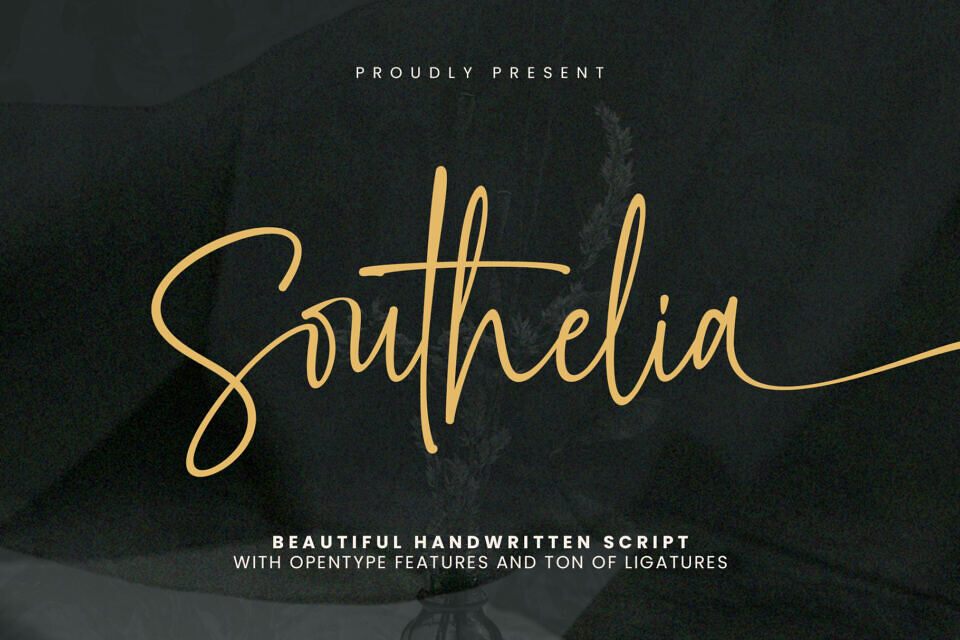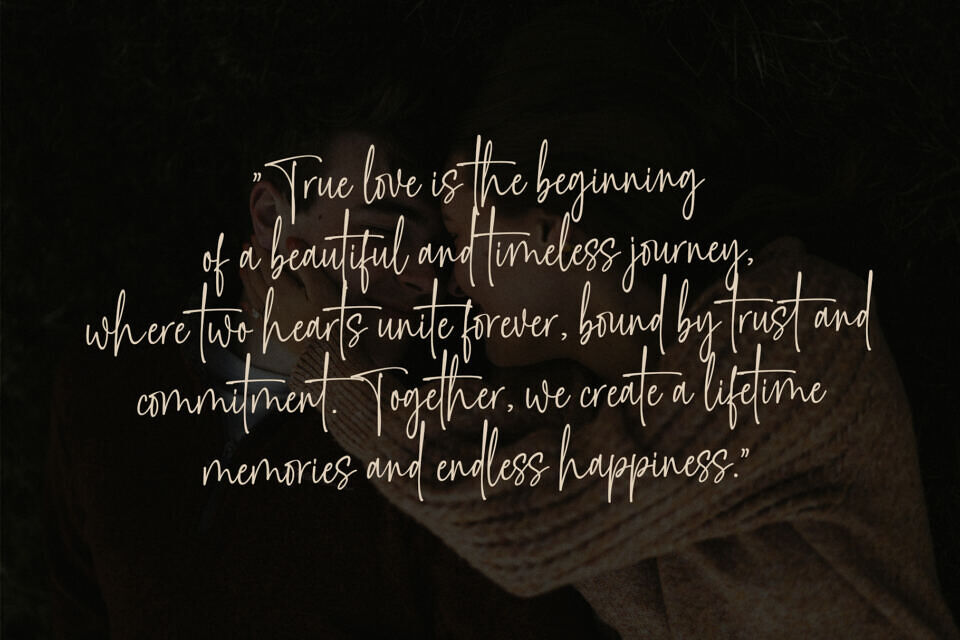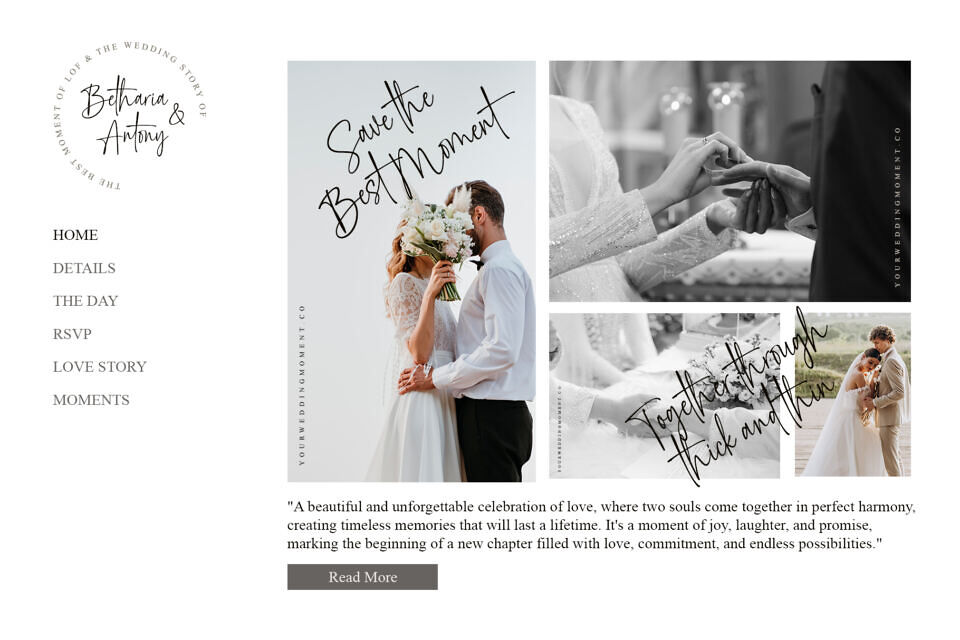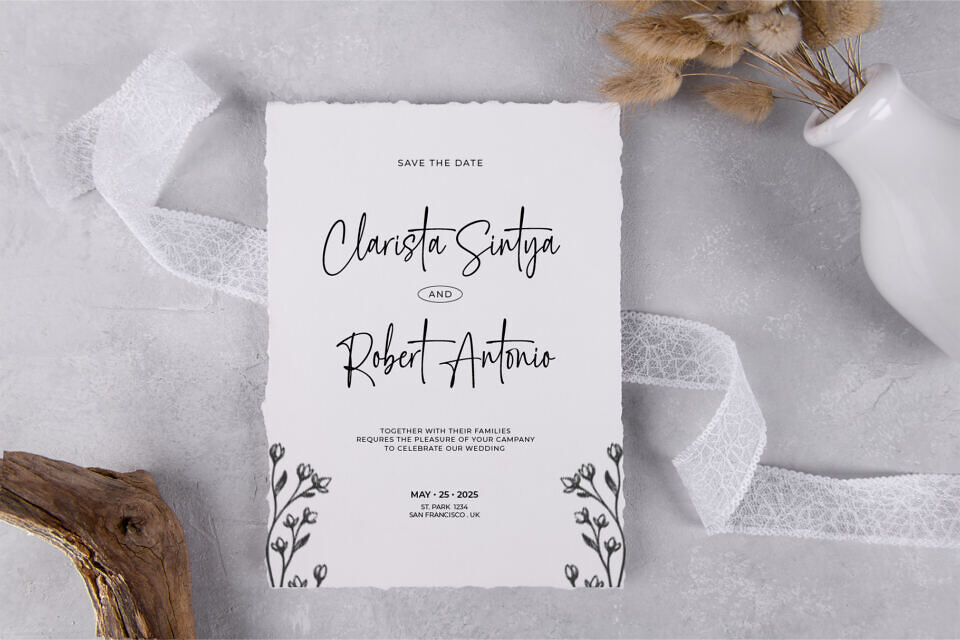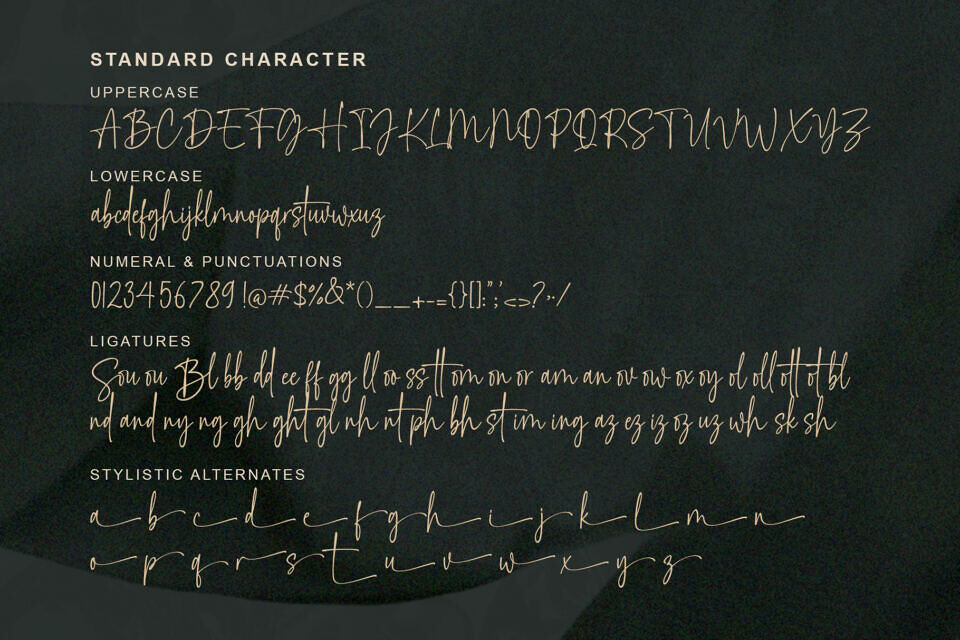
Southelia Font
Southelia is a modern and elegant script font designed by MJB Letters. With smooth hand-drawn strokes and beautifully extended swashes, Southelia brings a luxurious and feminine feel that’s perfect for a wide range of design needs including branding, wedding invitations, elegant and feminine designs, high-end branding, greeting cards,fashion or beauty logos, and social media headlines.